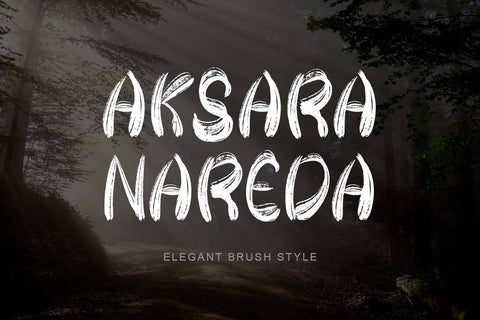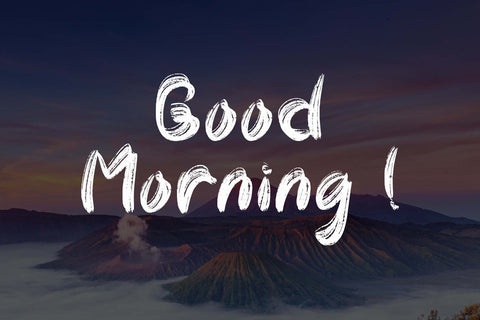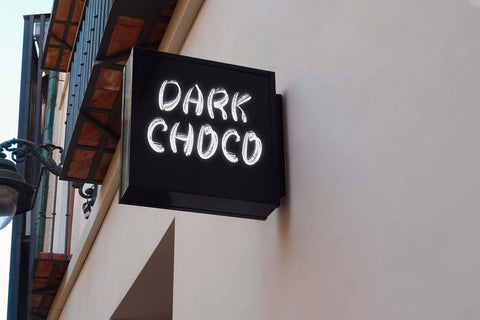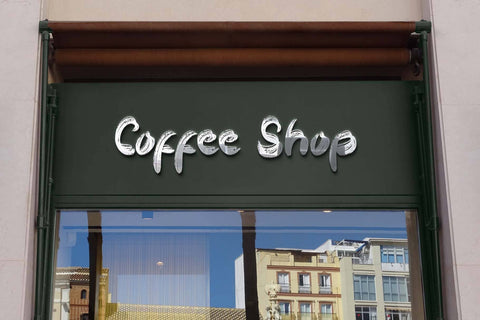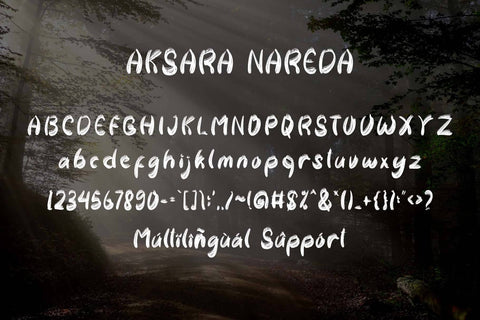
Aksara Nareda
"Aksara Nareda" is an elegant brush font. This font is equipped with uppercase, lowercase, numerals, punctuation, and multilingual support. Very suitable for logos, banners, branding, stickers, SVG, KDP, Procreate, sublimation, posters, summer, spring, Easter, Valentine, certificates, and others.